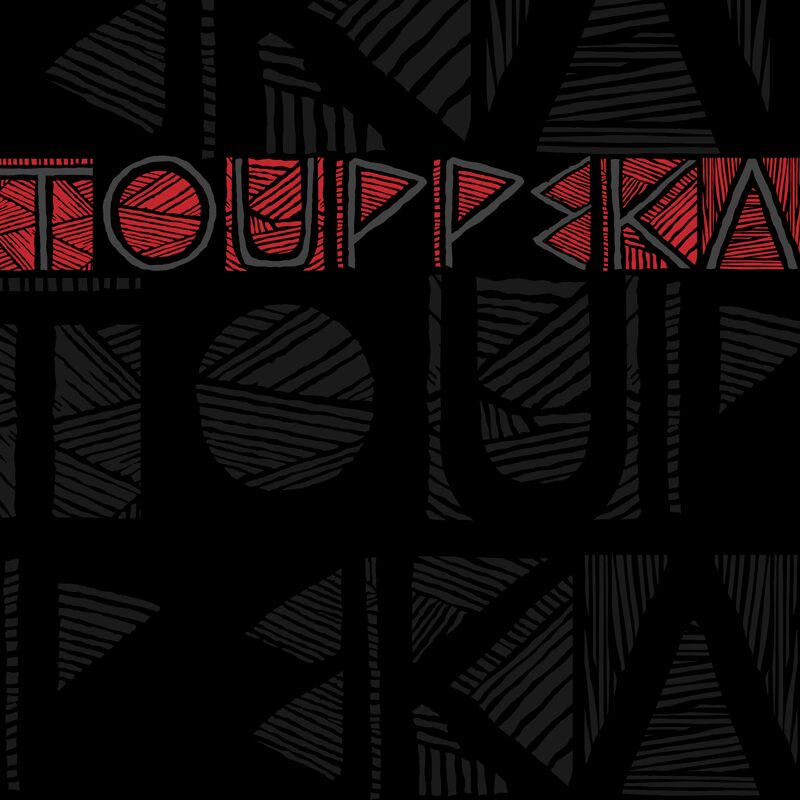
Touppeka Regular
Touppeka font by Galdino Otten Fonts is a creative decorative display font. It has an intricate pattern, a geometric influence, and a tribal aesthetic that make it perfect for all sorts of designs. The high-contrast design set with artistic texture results in the most beautiful alphabets as expected from an experienced artist.